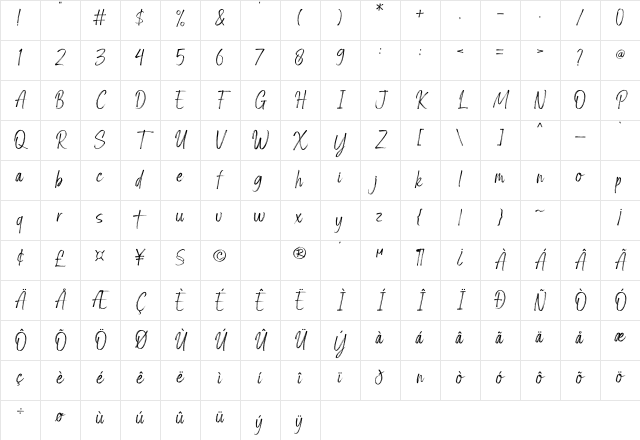
Amsterdam Signature Regular Free Font
Amsterdam Signature Regular
Foundry: Graphix Line Studio
Designer: Aldi Raya Pradipta
Design Context for Amsterdam Signature
Amsterdam Signature is a composed and adaptable typeface that performs quietly and consistently across a wide range of design contexts.